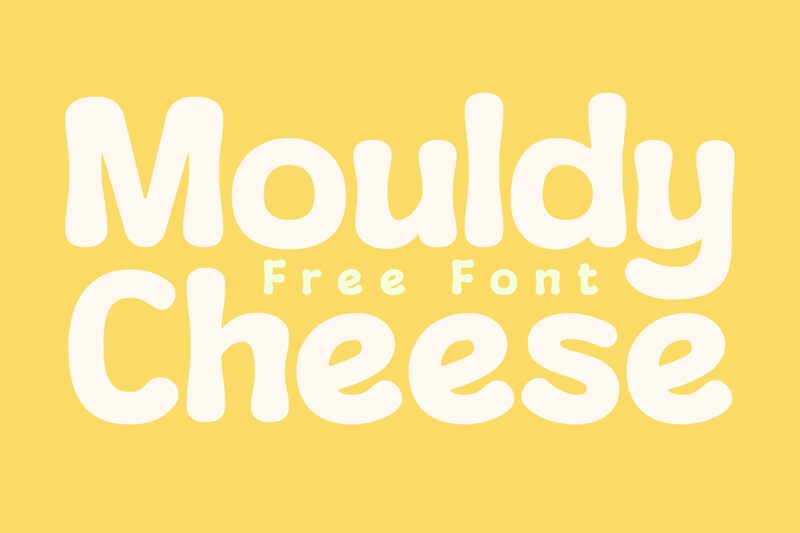
Mouldy Cheese Regular
Mouldy Cheese font by Niskala Huruf is a bold and round display typeface made with playful style, inspired by unique kids book's word art which have friendly character. The design of smooth curves, low contrast and thick strokes make it have retro feel and informal style. It's available on freeware license so you can use Mouldy Cheese for your publicity stuff!
Ideally suited to editorial, branding, logos, posters, packaging or small texts. Also great to use in banners images or quotes since there are distinctive letter shapes which make it easy to recognize in any kind of context even from distant!